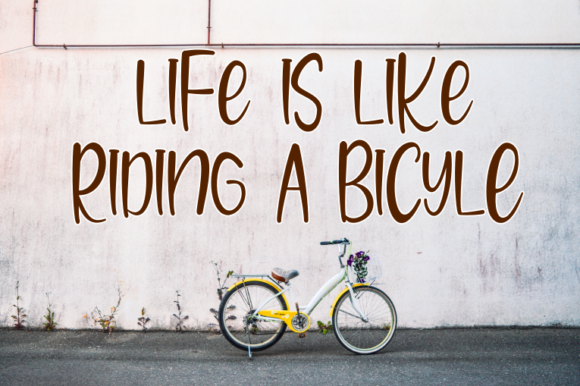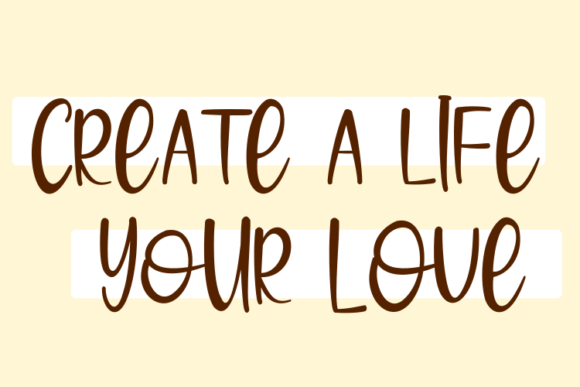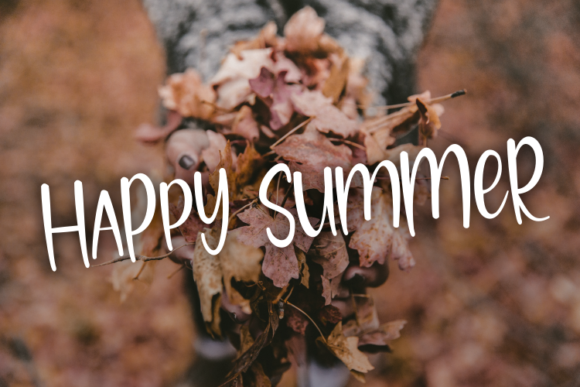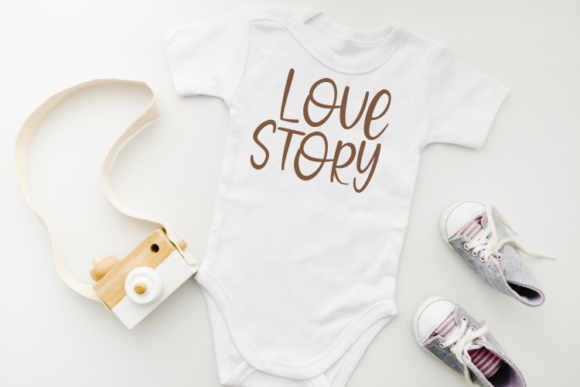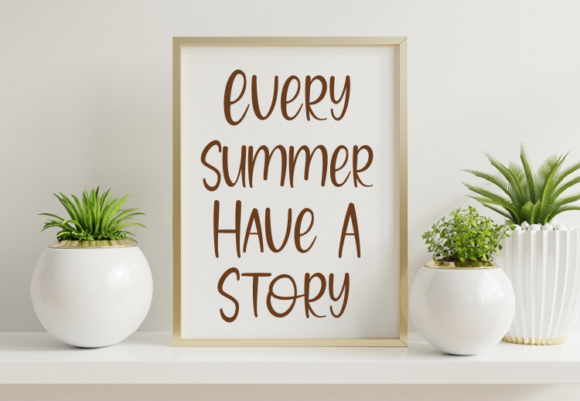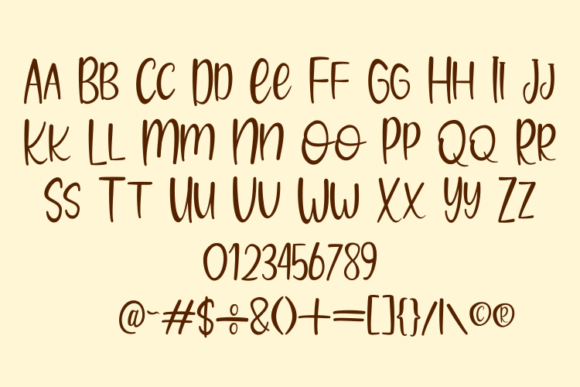
When a Design Idea Strikes
Have you ever been sipping your morning coffee, browsing through Pinterest, and suddenly, a spark of creativity hits you? You envision the perfect design, complete with a playful color scheme, charming illustrations, and a font that captures the essence of your vision. For many designers, this is exactly how the magic happens.
One of the most crucial elements of a captivating design is the font. That’s where the Brownie Moments Font comes in – a delightful handwritten font that exudes a sense of warmth and approachability. Whether you’re crafting wedding invitations, creating social media posts, or designing greeting cards, this font is the perfect companion to bring your ideas to life.
With its versatility and authentic feel, the Brownie Moments Font is a valuable asset for designers of all levels. Its down-to-earth charm makes it a go-to choice for projects that require a personal touch, and its readability ensures that your message is conveyed clearly and effectively.
Brownie Moments Font Key Features
- Font Family: Brownie Moments Font is a unique, handwritten font designed to evoke a sense of nostalgia and warmth.
- Character Count: The font includes a vast range of characters, including uppercase and lowercase letters, numbers, punctuation marks, and special characters.
- Font Size and Resolution: Brownie Moments Font is designed to be scalable, making it suitable for use in various font sizes, from small captions to large headlines, at resolutions up to 300 DPI.
- Unique Characteristics: This font features a distinctive, handwritten style with subtle imperfections, giving it a charming, personal touch.
Designer Review: Brownie Moments Font
First of all, I love the playful and whimsical vibe of the Brownie Moments Font. The ✨ quirky details and flourishes add a touch of personality to any design. I’ve used it in a few projects, and it always seems to bring a smile to the viewer’s face. The font’s cursive style is perfect for creating a sense of warmth and approachability.
- ✨ Unique and playful design that adds character to a design
- ✨ Perfect for creating a warm and approachable feel
- ✨ Great for titles, headings, and short blocks of text
- ⚠️ Not ideal for large blocks of text, as it can be difficult to read
- ⚠️ May not be suitable for formal or professional designs, due to its playful nature
- ⚠️ Limited font sizes and weights may limit its versatility
Overall, I think the Brownie Moments Font is a great addition to any designer’s toolkit. While it may have some limitations, its unique design and playful vibe make it a great choice for projects where you want to add a touch of personality and whimsy.
The “Brownie Moments Font” is a playful, cursive font perfect for:
- Food and dessert branding
- Handwritten-style quotes and phrases
Remember to use the font in moderation to avoid overwhelming your design.
Alternatives to Brownie Moments Font
Great Vibes Font is a modern, elegant script font ideal for creating a friendly and approachable atmosphere. It’s perfect for branding, social media, and promotional materials. When to use: Food, lifestyle, and wellness brands.
Compared to Brownie Moments Font, Great Vibes Font is more modern and less cursive. It’s a great choice for designers who want a friendly and approachable feel without the cursive aspect.
Carolyna Pro Font is a sophisticated, elegant script font suitable for luxury and high-end brands. It’s ideal for creating a sense of sophistication and refinement. When to use: Luxury, high-end, and premium brands.
Compared to Brownie Moments Font, Carolyna Pro Font is more elegant and sophisticated. It’s a great choice for designers who want to convey a sense of luxury and high-end quality.